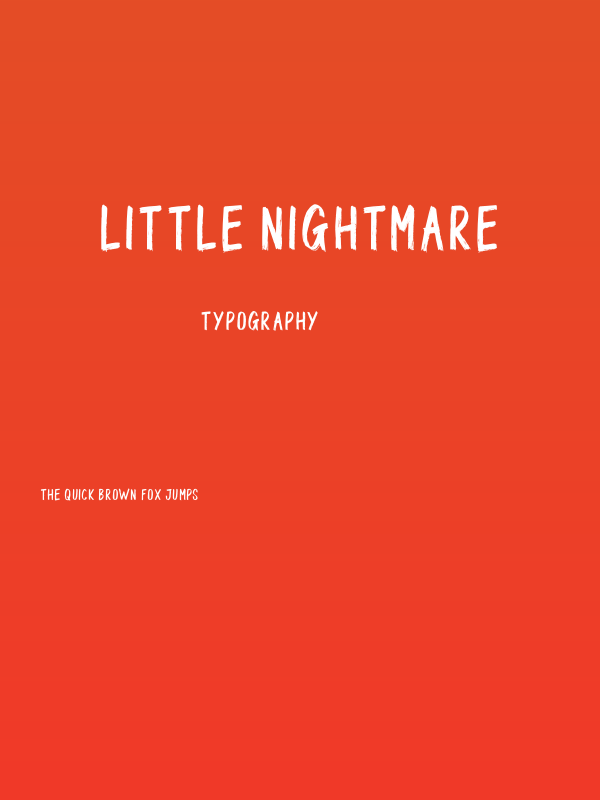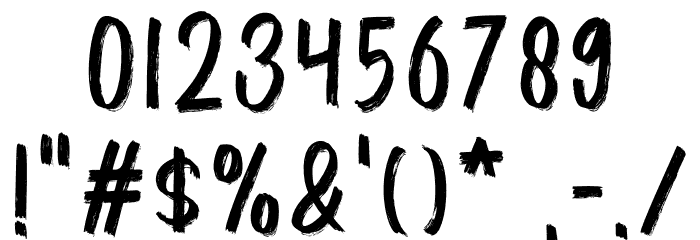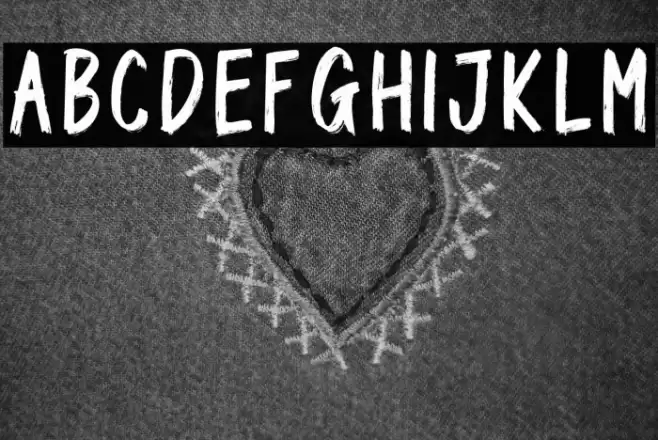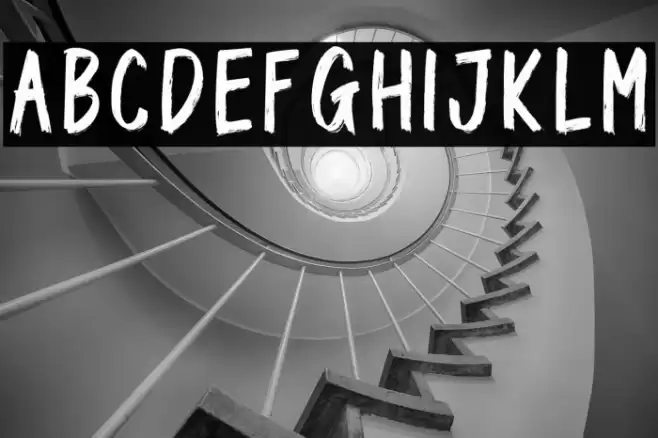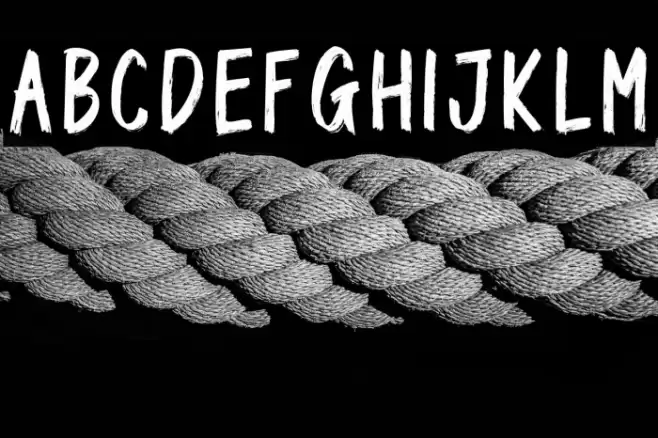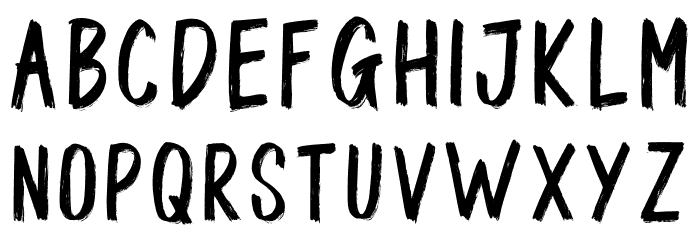
LITTLE NIGHTMARE Font
LITTLE NIGHTMARE Description
This font features a bold, hand-painted style with a rough, textured appearance. Each character is uniquely crafted, giving an organic and dynamic feel. The strokes are uneven, adding to the hand-drawn aesthetic, which makes it stand out in any design. The uppercase letters are prominent and assertive, while the numbers and special characters maintain the same artistic flair. This font is perfect for projects that require a touch of creativity and individuality, such as posters, album covers, or artistic branding. Its distinctive style captures attention and conveys a sense of boldness and creativity.